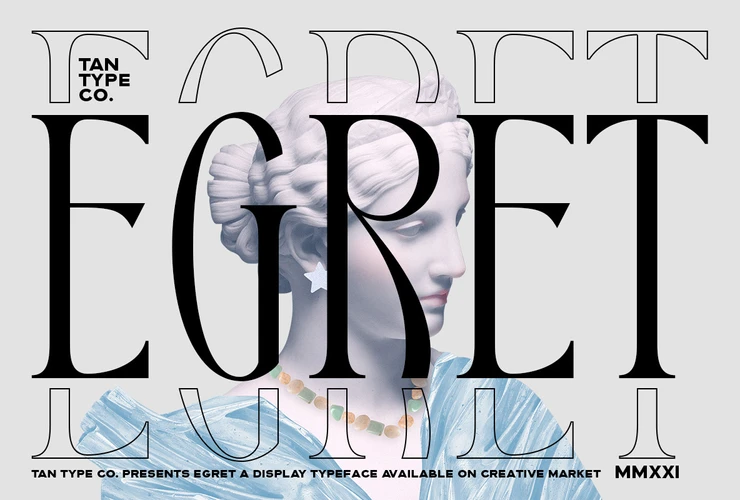
The design, in the designer’s words
TanType’s description is one line: TAN Egret is “an elegant display font with the classic twist, suitable for a wide array of design applications.” The type historian Luc Devroye, who catalogues TanType’s releases, lists Egret among the foundry’s 2021 fonts and describes it as “a condensed display serif.”
Put together, that points to a narrow serif made for headlines rather than body text. We have not examined the font files, so look at the preview images on the listing to judge the details, such as the serifs and the contrast between thick and thin strokes. TanType’s catalogue leans toward decorative, classical display faces, and Egret sits in that family as one of the foundry’s 2021 releases.
Where a condensed display serif earns its place
Condensed letters take up less width, so a condensed serif can set a long headline in large type without wrapping. That makes TAN Egret’s style a natural fit for:
- Magazine and blog headlines, and book covers.
- Posters and event flyers with a classic or vintage tone.
- Packaging labels, where a product name must fit a narrow panel.
- Wordmarks for boutiques, cafés or beauty brands.
For body text, pair it with something quieter. A clean sans such as DM Sans or Lato keeps the contrast clear. If you prefer an all-serif look, EB Garamond reads well in paragraphs under a display serif headline.